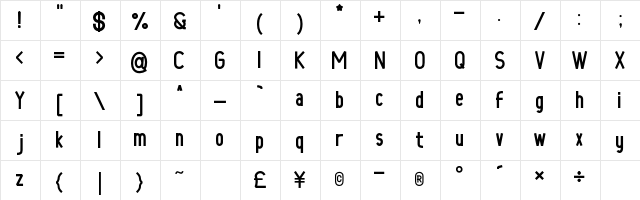
Boomerang Regular
Design Context for Boomerang Typeface
Boomerang takes a measured approach to typography — its balanced proportions and neutral character make it a reliable workhorse for both digital and print work.